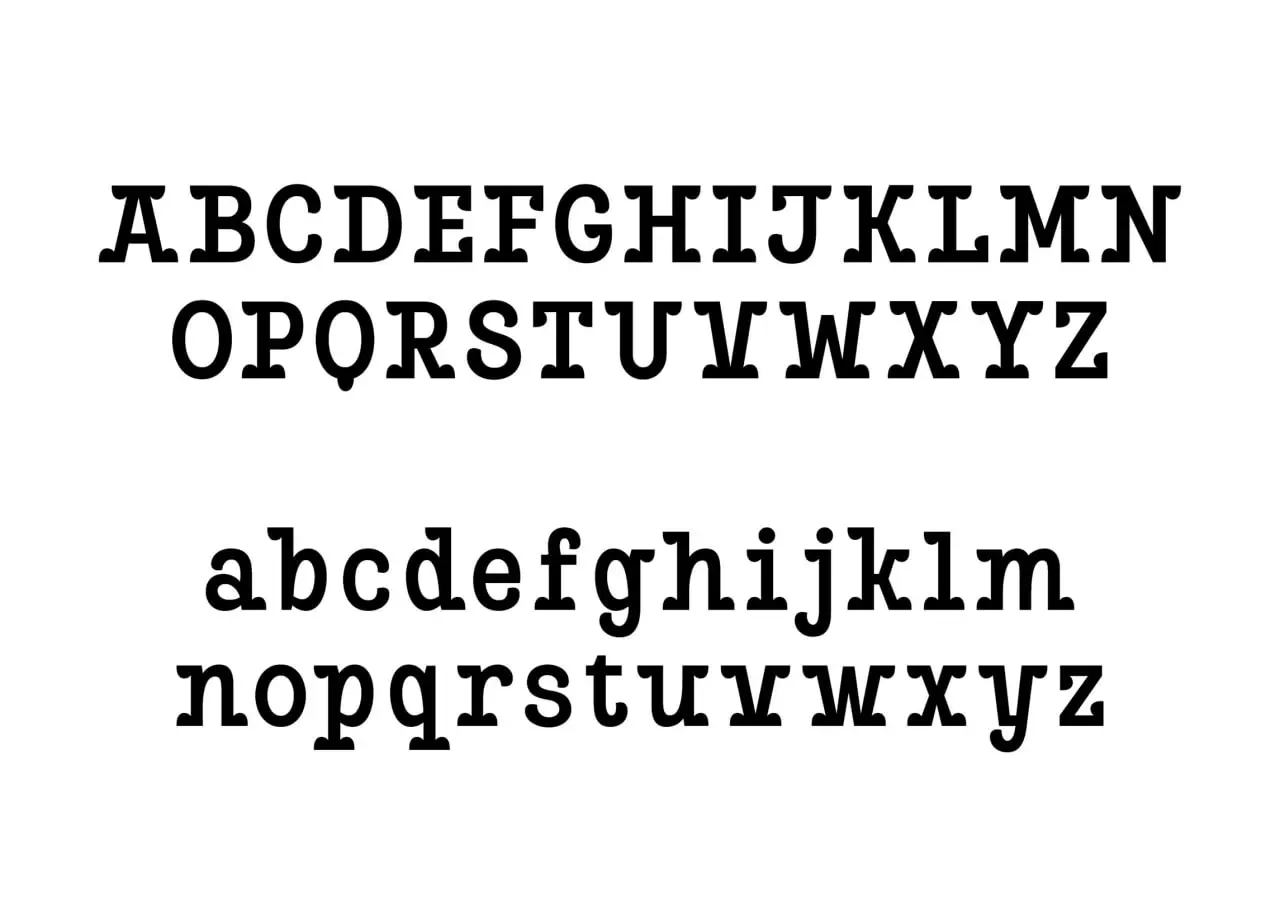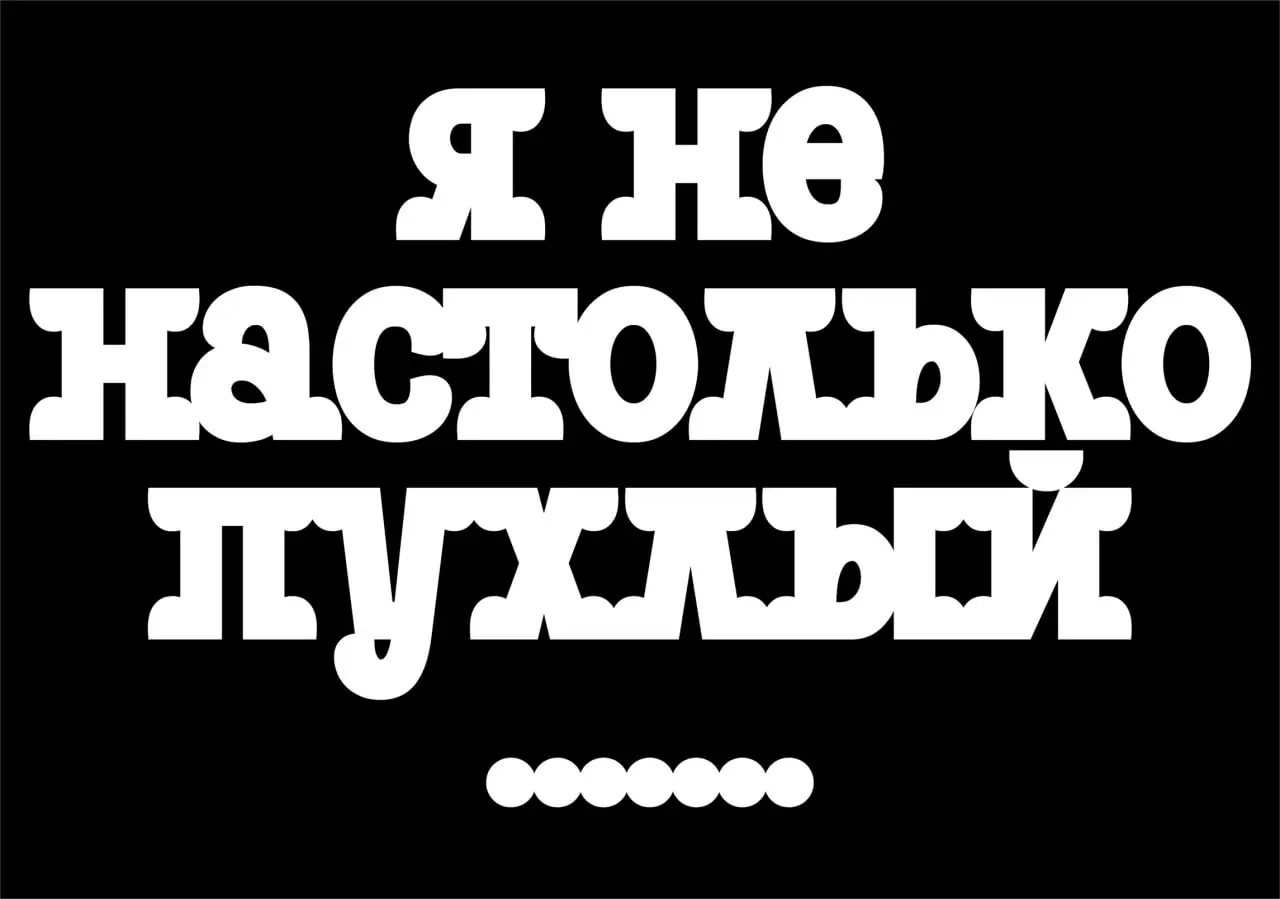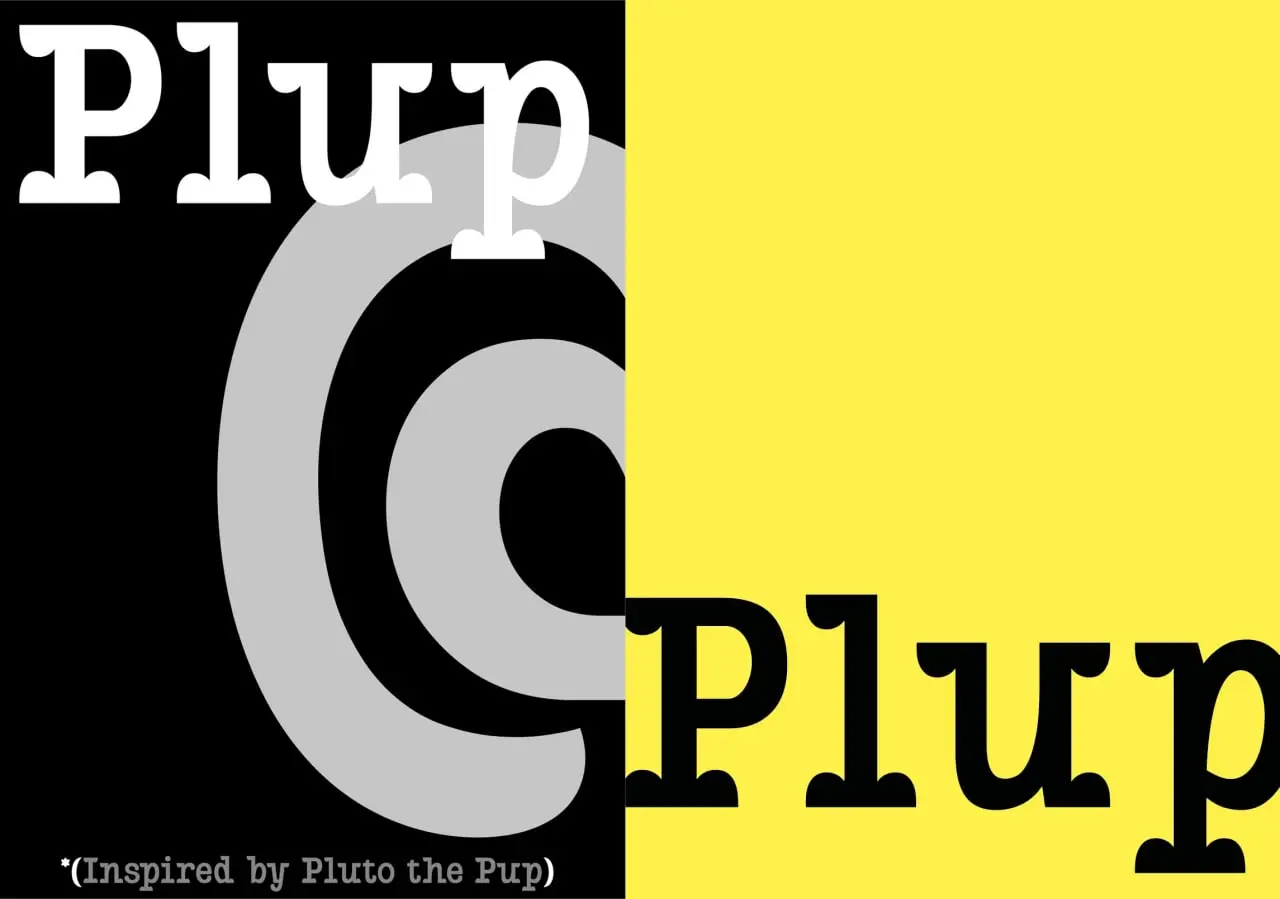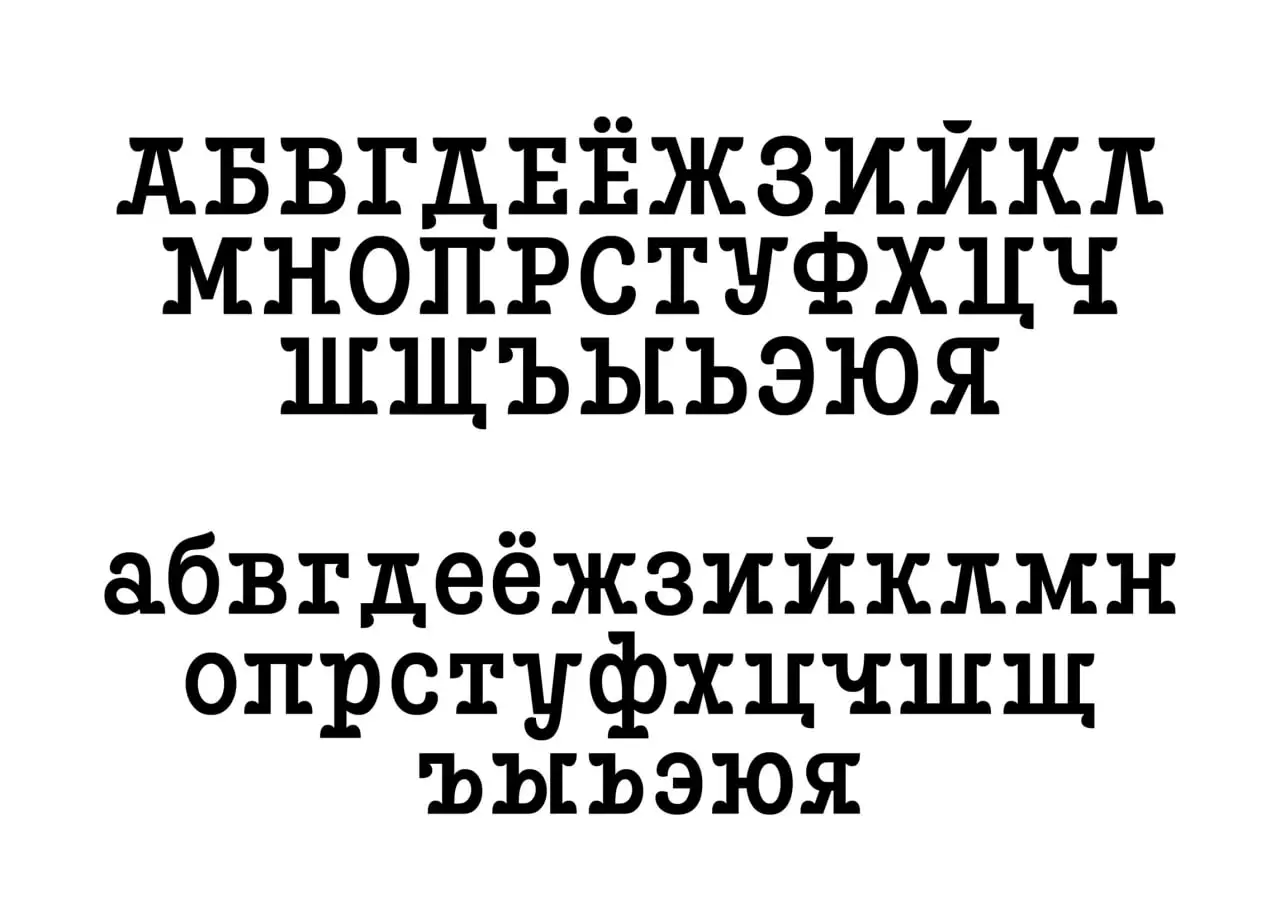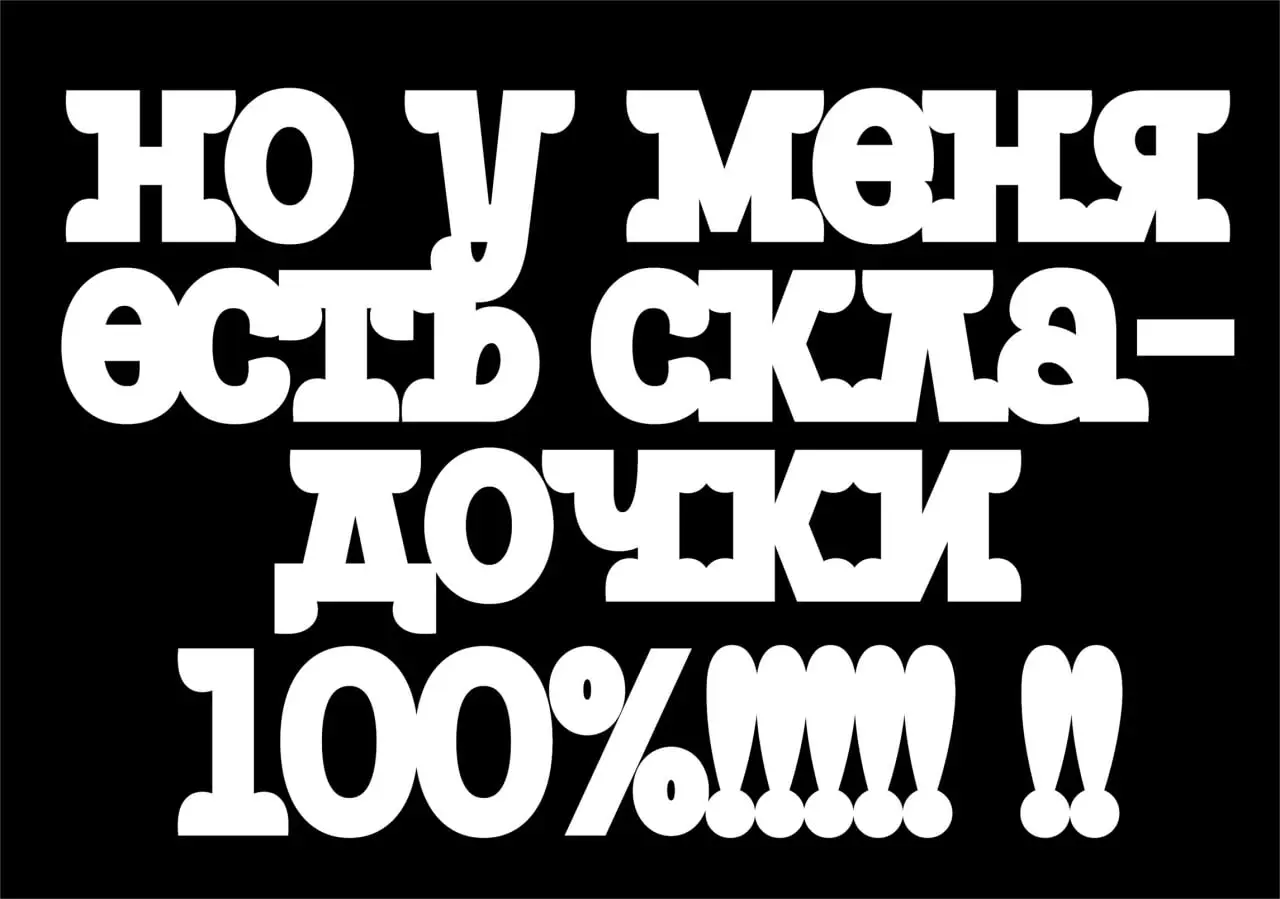
Plup Font By Kseniya Hohryakova
Introducing the Plup Font by Kseniya Hohryakova, a versatile typeface designed to elevate your creative projects. With its unique character and modern aesthetic, Plup is perfect for a variety of applications, from branding to digital media.
• Multiple weights for diverse usage
• Language support for Latin-based languages
• Ideal for logos, posters, and branding materials
• Great for web and print applications
• Use in user interfaces for a modern look